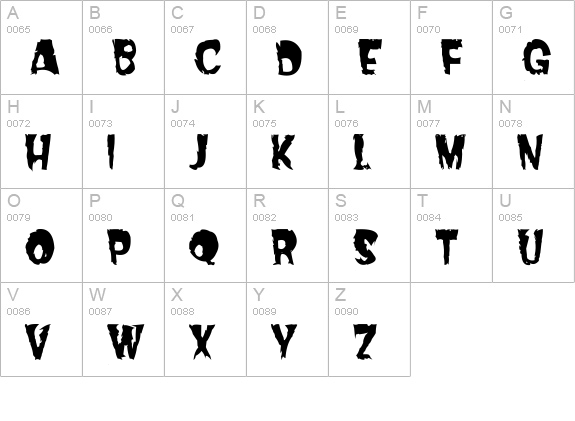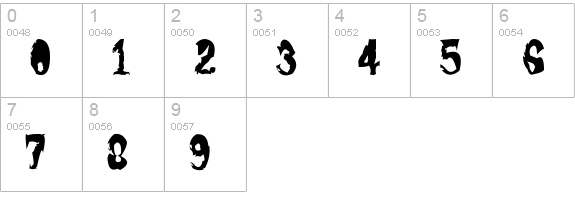
Dread Font Details
The Dread font is a striking and bold typeface that exudes a sense of power and intimidation. Its sharp edges and strong lines make it perfect for creating eye-catching designs that demand attention. Whether you're looking to make a statement with your typography or add a touch of edginess to your project, Dread is sure to deliver. What's even better is that Dread is freely available to download at FontsMarket.com, making it accessible to all designers and creatives looking to elevate their work with this impactful font. Don't miss out on the opportunity to add this dynamic typeface to your collection and unleash its full potential in your designs. Download Dread font now and let your creativity run wild!